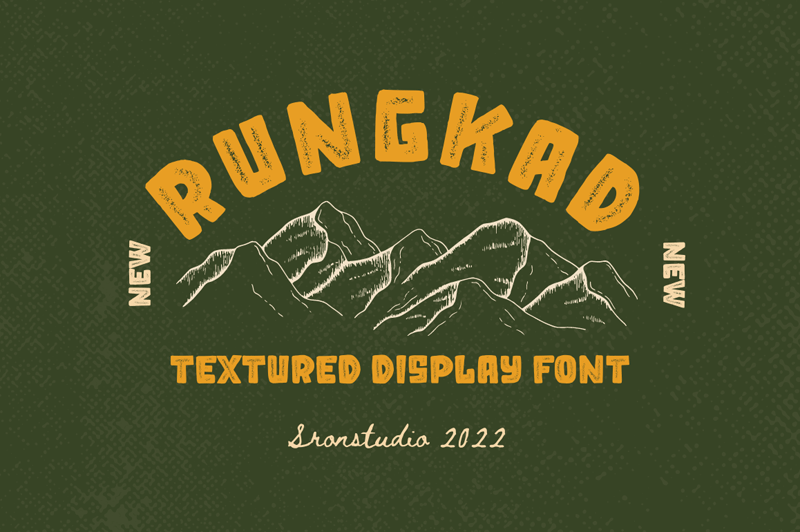
Preview and download Rungkad Font. Created by Yusron Billah in Fancy Eroded styles with Free for personal use license.
Font name: | Rungkad |
Author: | Yusron Billah |
RUNGKAD comes with a rough texture that gives a natural and vintage impression, suitable for the needs of outdoor apparel, merchandise, event posters, movies, etc Note: This demo font is for PERSONAL USE ONLY! -------------------------------------------------------- Link to purchase full version and commercial license : -> https://sronstudio.com/product/rungkad-textured-display-font/ -------------------------------------------------------- Browse More Fonts: https://sronstudio.com/ -------------------------------------------------------- Follow my Instagram for updates: @sronstudio |